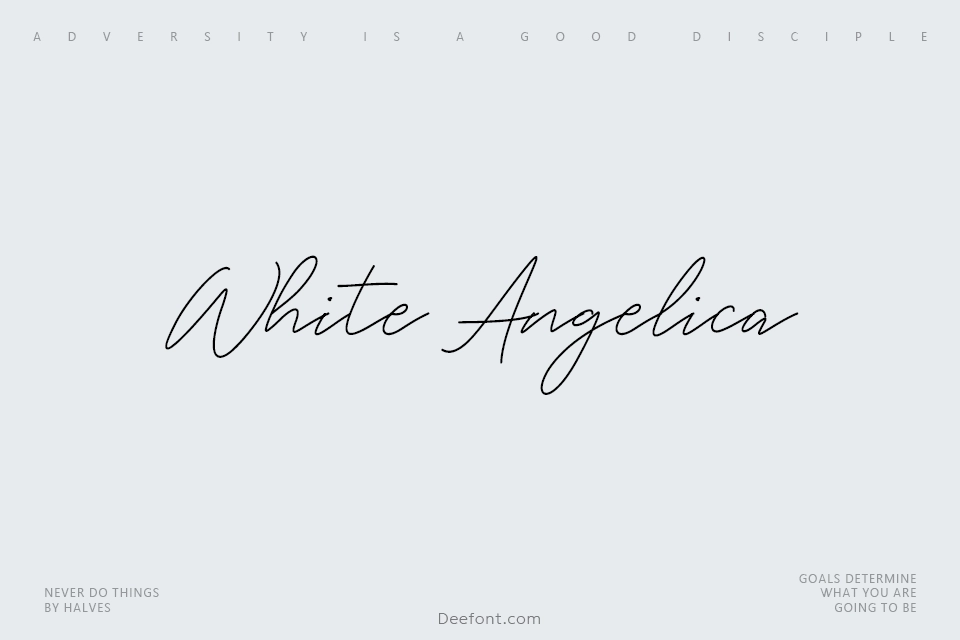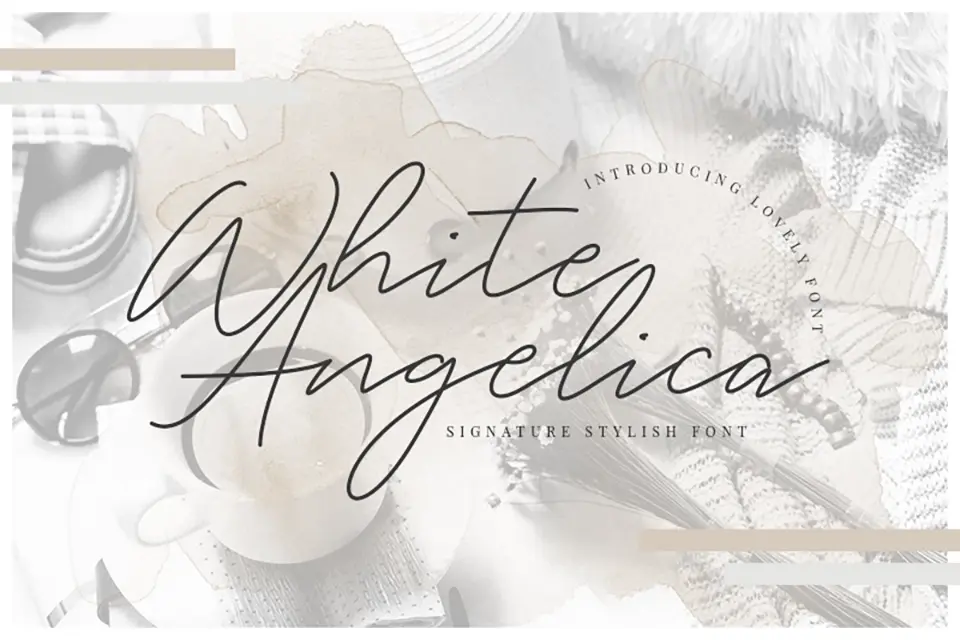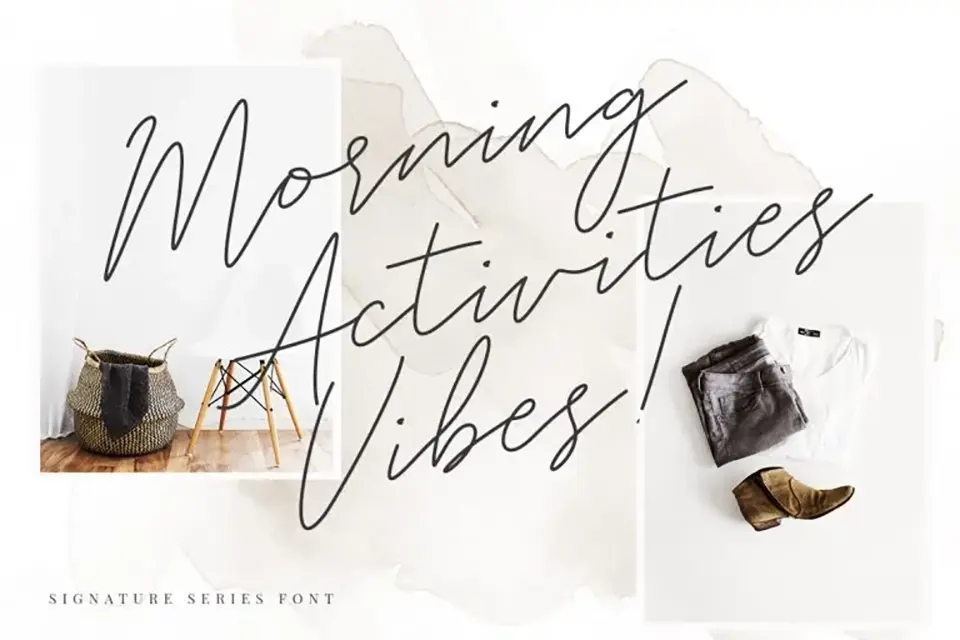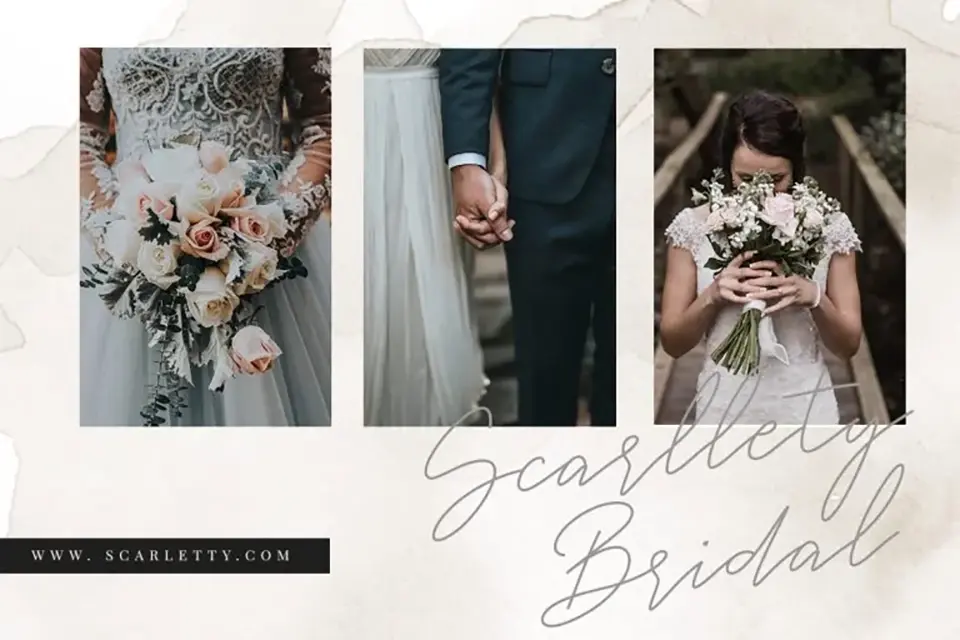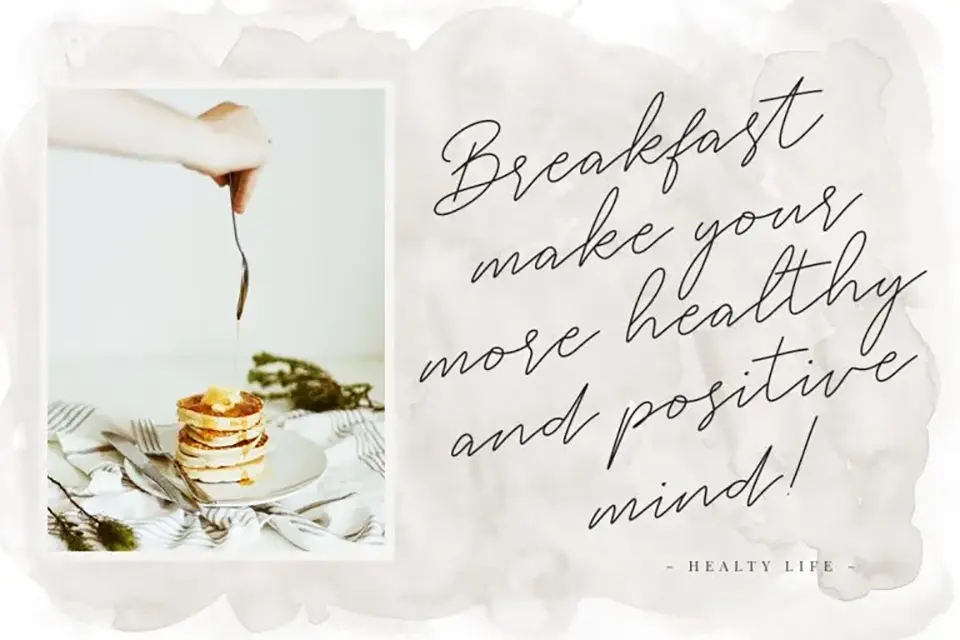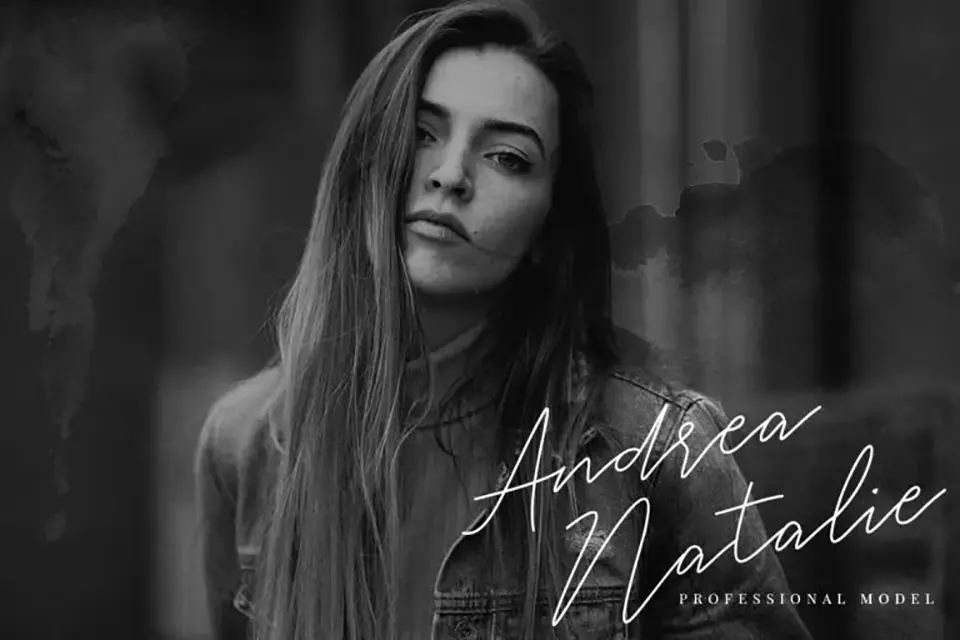
White Angelica Font
White Angelica is an elegant handwritten script font featuring a natural and organic flow. Designed with charming letterforms, this font is perfect for branding, logo design, wedding invitations, social media graphics, and creative projects that require a sophisticated handwriting aesthetic. Its unique signature style adds a personal touch to any design composition.